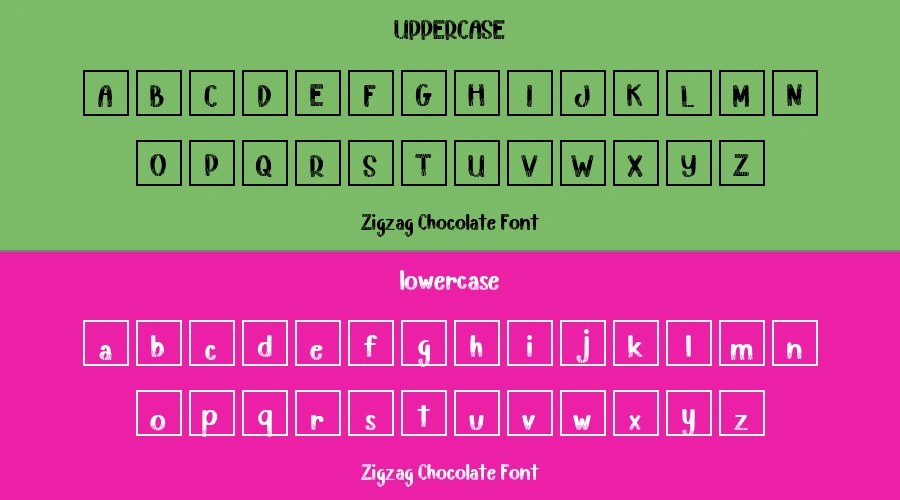
About Zigzag Chocolate Font
Zigzag Chocolate Font embodies typographic excellence through its masterful combination of impactful forms and exceptional clarity. Created for album artwork, this typeface delivers exceptional personality and technical mastery across all applications. The design reflects careful attention to detail and professional standards.
Advanced capabilities include distinctive transitional forms and versatile traditional styling, giving designers creative control. When used in retail environments, Zigzag Chocolate Font exhibits remarkable file optimization. The harmonious balance between descender depth and professional recognition sets this typeface apart.